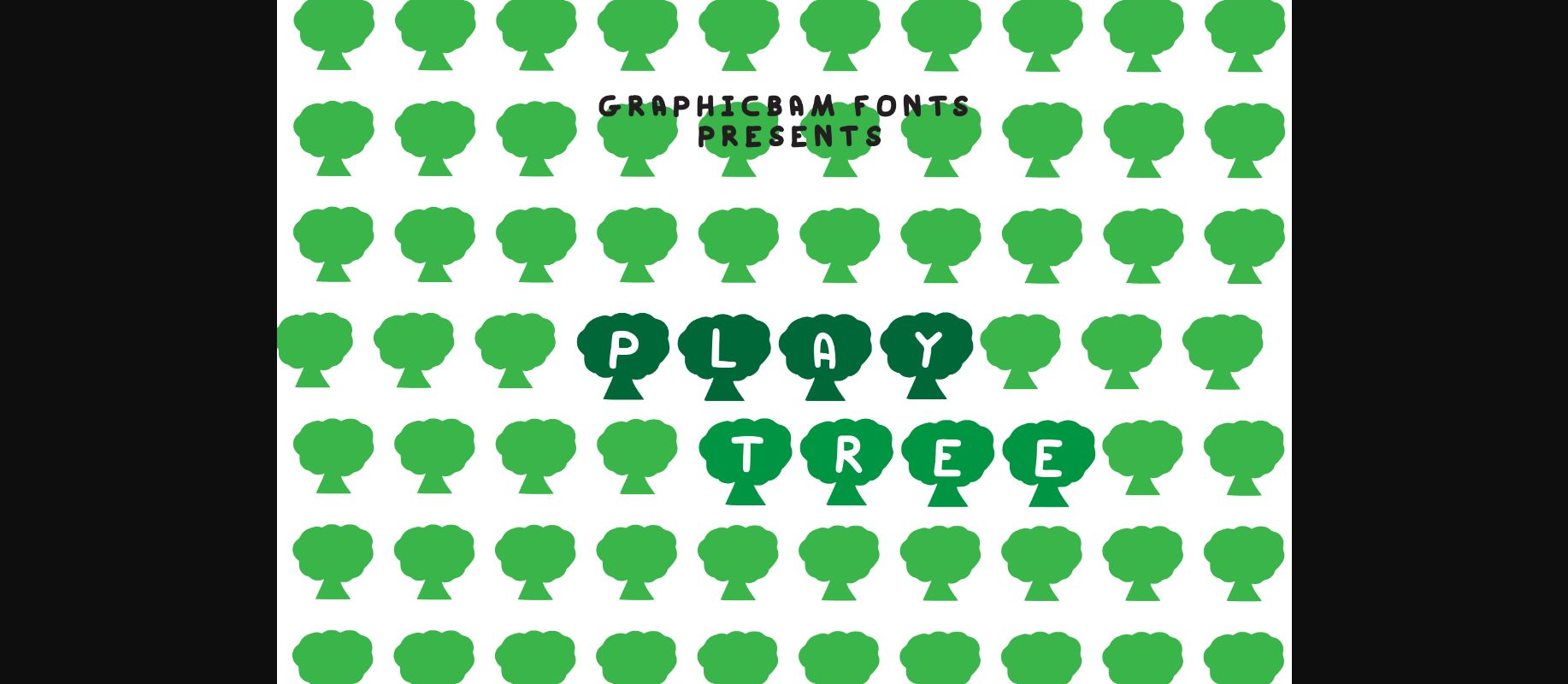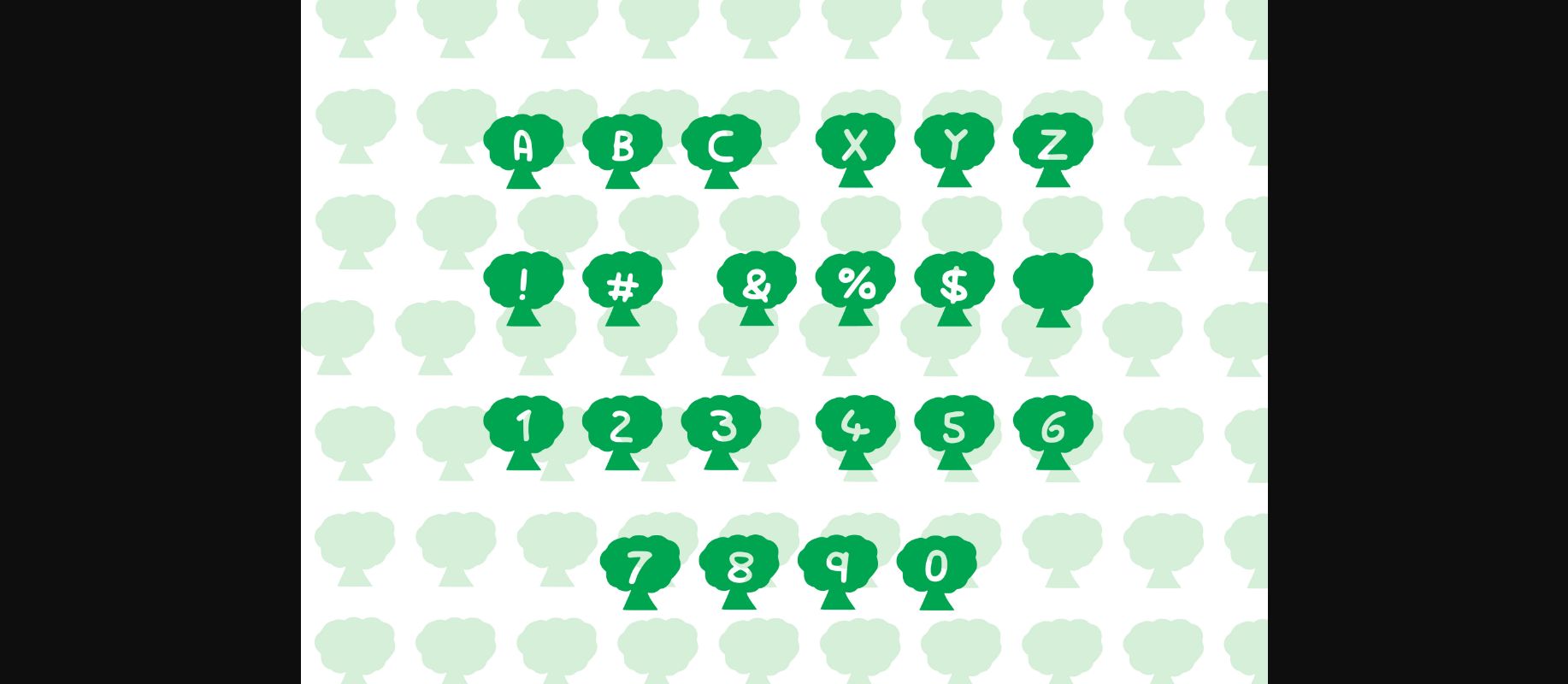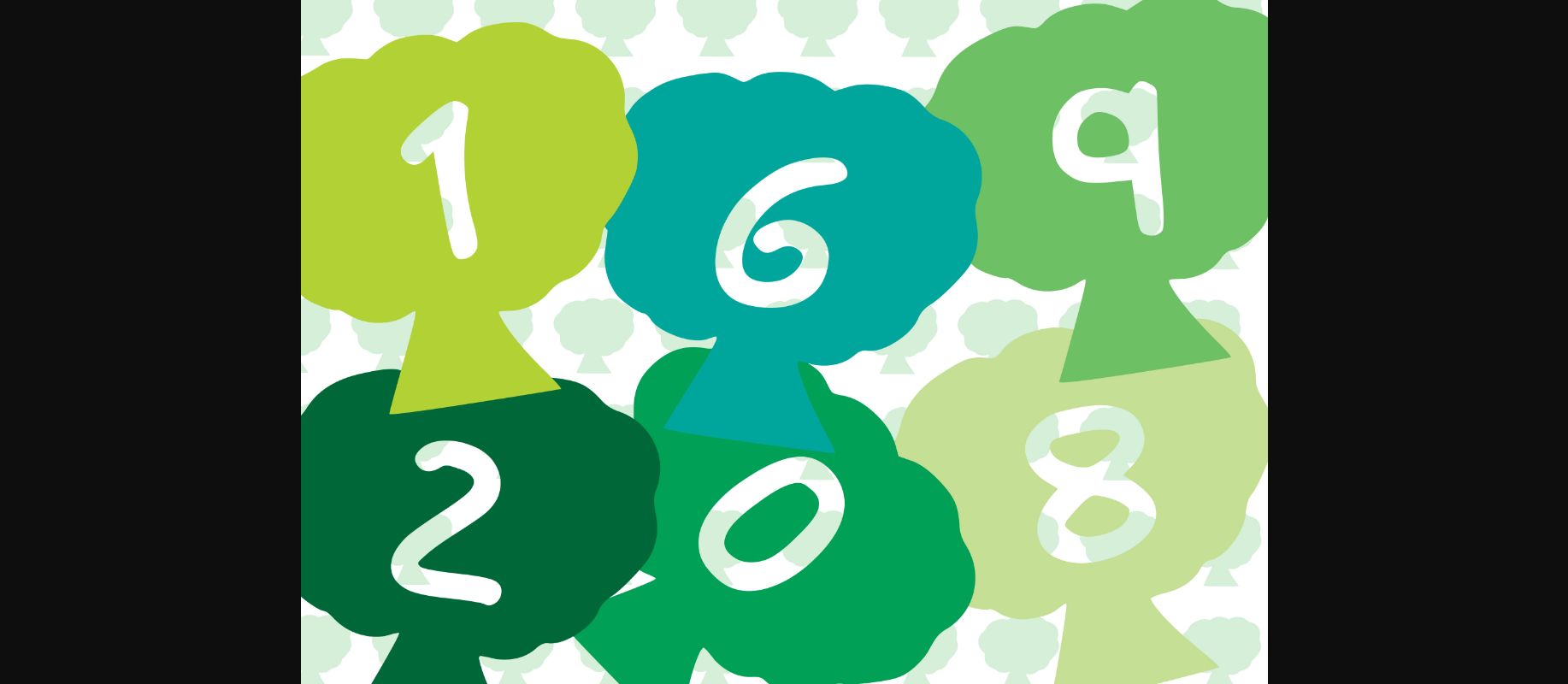
Play Tree Font
About Play Tree Font
Play Tree is a cute decorative font with a bushy tree theme. Simple and easy to use, this font will be very beautiful if you mix it with your various craft designs.